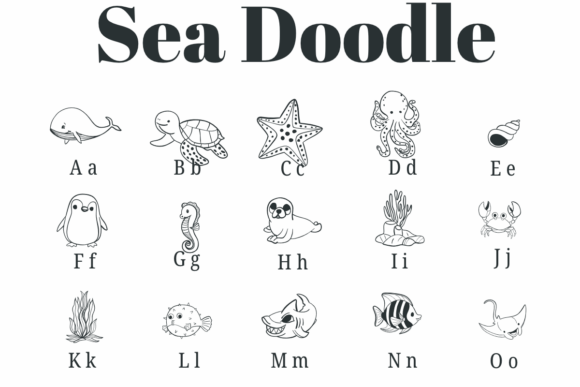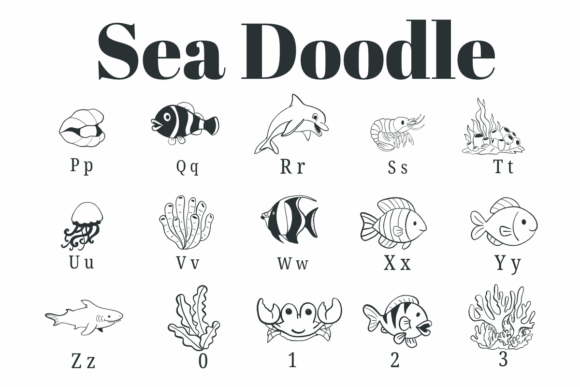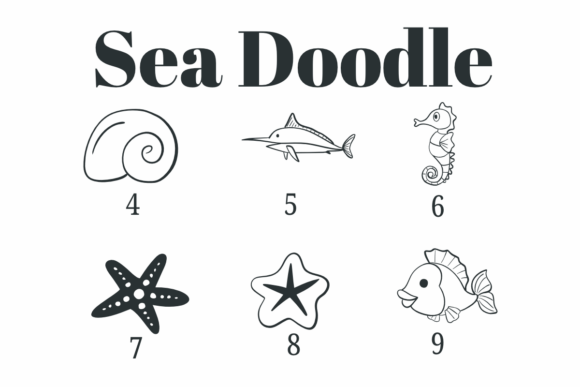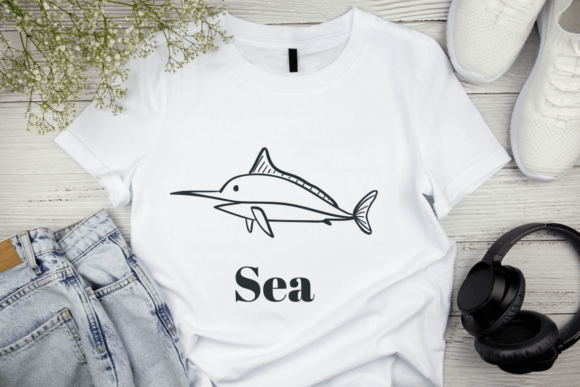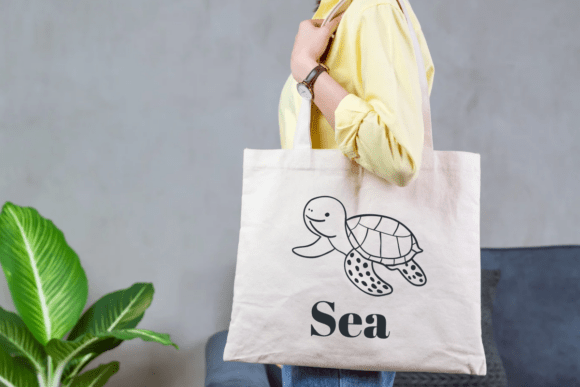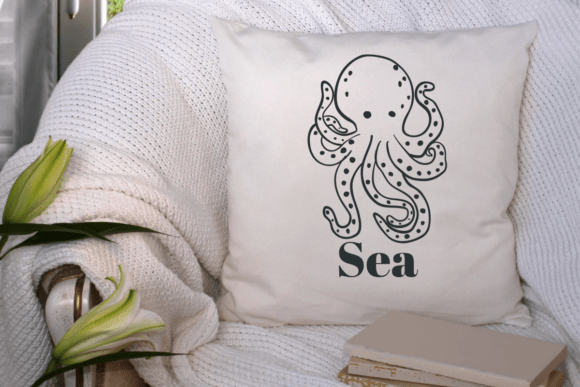
Introduction to Sea Doodle Font
Have you ever stared at a blank screen, waiting for inspiration to strike, only to have a wave of creativity crash over you when you stumble upon the perfect design element? For many designers, this moment is what makes all the hard work worth it. And that’s exactly what we’re here to talk about – the Sea Doodle Font, a treasure trove of hand-drawn dingbats that will transport you to an underwater world of wonder.
This enchanting font is more than just a design resource – it’s a high-quality collection of illustrations that will elevate any creative project. With its clean, bold outline style and transparent background, the Sea Doodle Font is perfect for digital and print projects alike. And the best part? It’s available for free download, making it an instant go-to for designers of all levels.
Whether you’re building a summer-themed brand or an educational resource, the Sea Doodle Font is the perfect tool to bring your vision to life. So why settle for ordinary when you can dive into the world of Sea Doodle Font and discover a world of creative possibilities?
Key Features of Sea Doodle Font
- High-quality design resource with a playful, whimsical feel, perfect for creative projects.
- Transparent background, making it easy to use in a variety of design applications and ensuring a clean, unobtrusive look.
- Includes a range of unique doodle-style characters and symbols, adding a touch of personality to your designs.
Honest Review: Sea Doodle Font
I recently came across the Sea Doodle Font while searching for a fun and playful design resource to add some personality to a creative project. Overall, I was impressed with what I found.
- ✨ High-quality font design with a cute and whimsical feel
- ✨ Comes with a transparent background, making it easy to place over different colors or images
- ⚠️ Limited character set, which may not be suitable for longer text-based projects
- ⚠️ Some characters may not display properly in certain font sizes or styles
Overall, I think the Sea Doodle Font is a great addition to any designer’s toolkit. It’s perfect for adding a touch of whimsy to a children’s book, a fun logo, or even a social media graphic. With a little creativity, you can make the most of this charming font.
The Sea Doodle Font is a high-quality, free download design resource ideal for creative projects requiring a playful, whimsical touch. This font features a transparent background, making it versatile for use in various design applications.
To maximize the effectiveness of the Sea Doodle Font, experiment with different font sizes, colors, and combinations with other design elements. This font is highly versatile and can be used in a variety of creative ways.
The Sea Doodle Font is commonly used in children’s book illustrations, party invitations, and promotional materials for kids’ products. Its playful, whimsical design makes it an ideal choice for projects requiring a lighthearted, engaging tone.